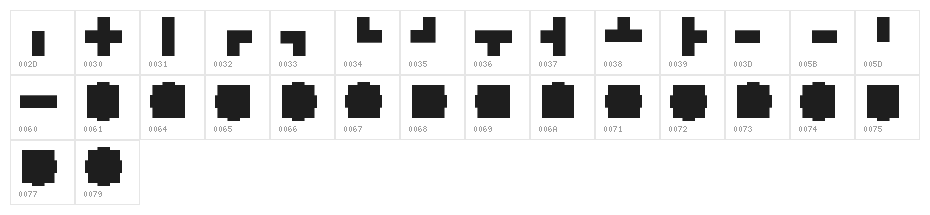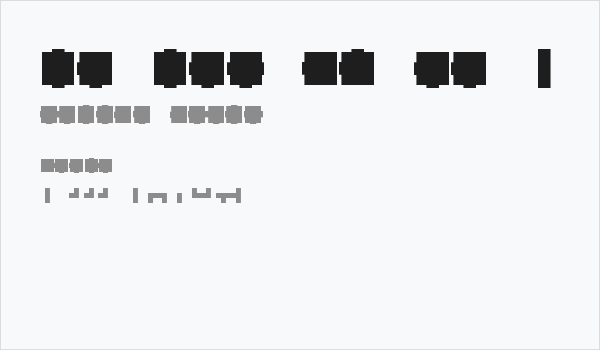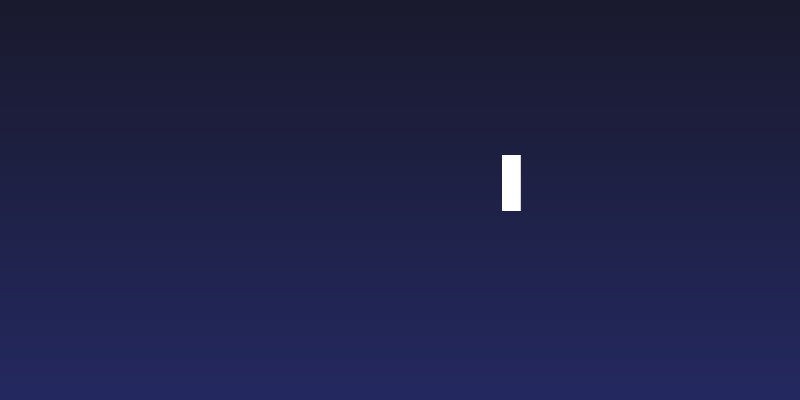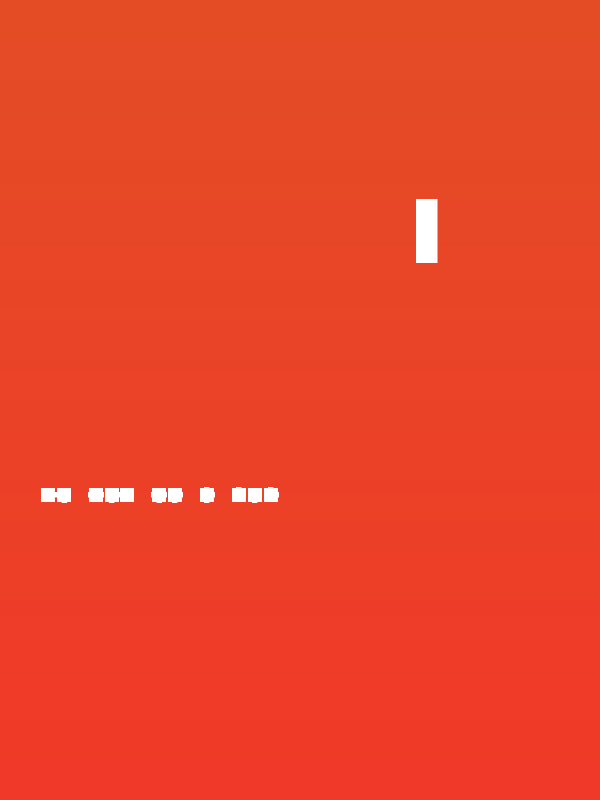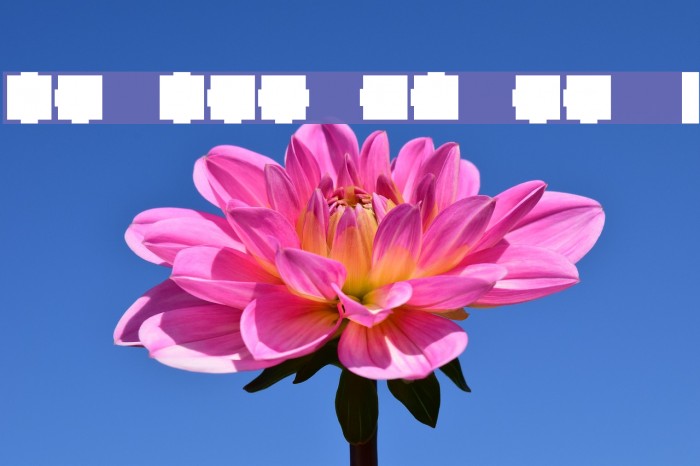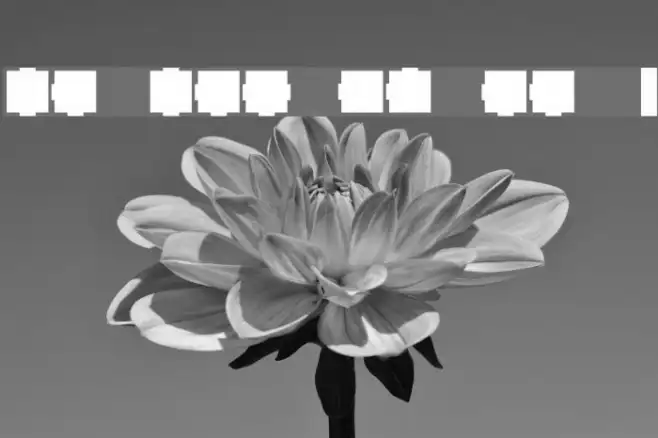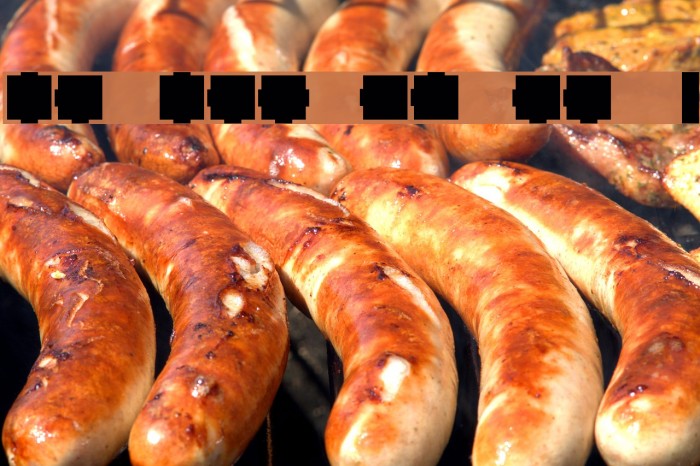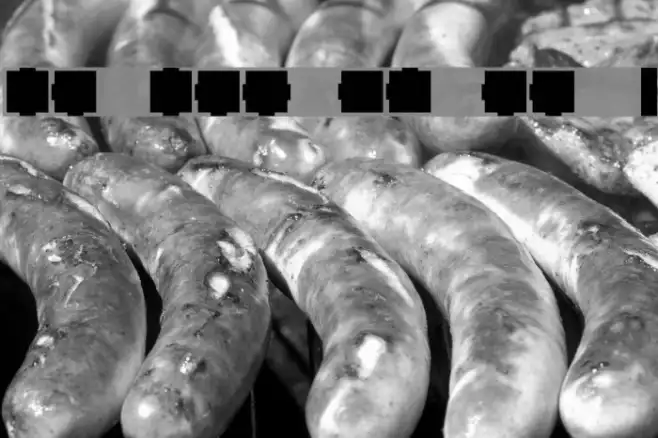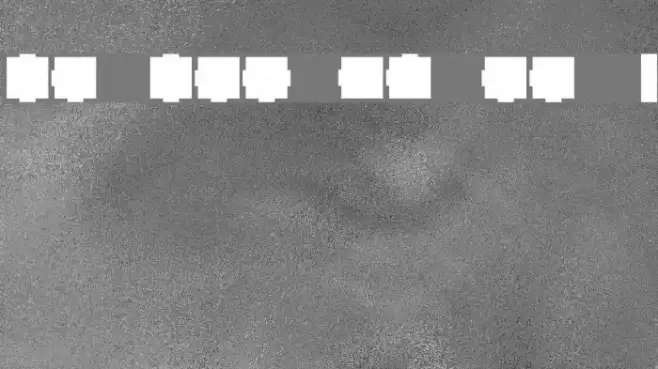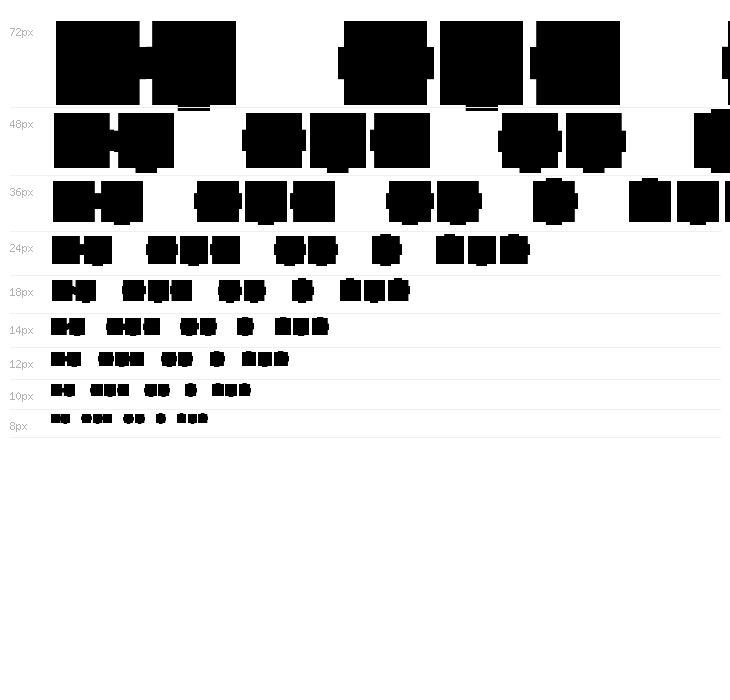
Maze Maker Solid Level 1F Font
Maze Maker Solid Level 1F Description
This font features a bold, geometric design with a maze-like appearance. Each character is constructed with solid, blocky shapes that create a sense of depth and complexity. The uppercase letters are particularly striking, with their intricate patterns and strong presence. The lowercase letters maintain the same style, ensuring consistency across the typeface. Numbers and special characters are also designed with the same attention to detail, making them stand out. The font's unique style makes it ideal for creative projects that require a distinctive and eye-catching look.